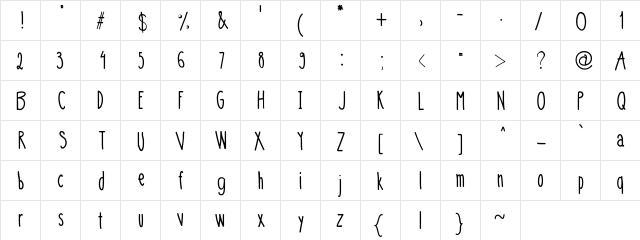
6PM Medium
Design Context for 6PM Typeface
6PM takes a measured approach to typography — its balanced proportions and neutral character make it a reliable workhorse for both digital and print work.